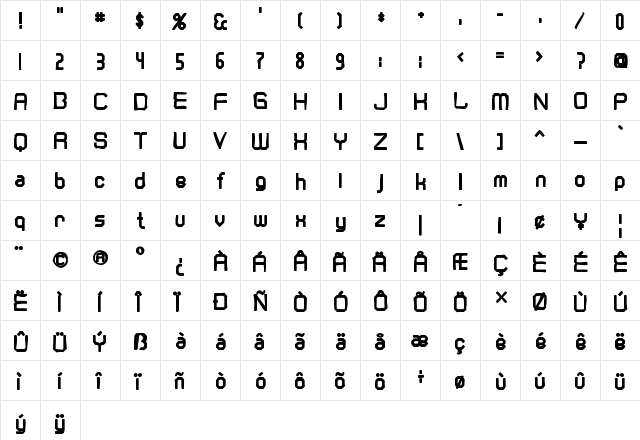
Cranberry Gin Ink Regular
Design Context for Cranberry Gin Ink Typeface
Cranberry Gin Ink is a composed and adaptable typeface that performs quietly and consistently across a wide range of design contexts.